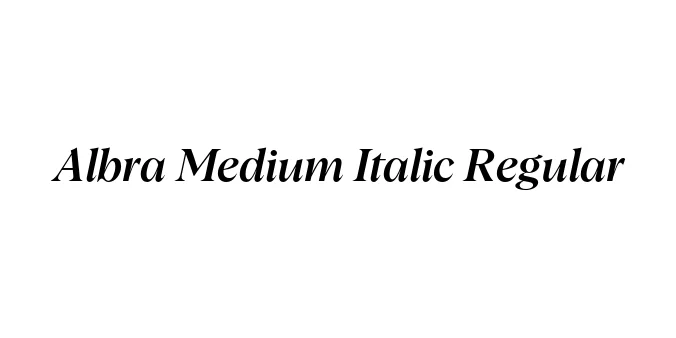
Albra Medium Italic Regular
Designed by BumbumType
Albra Medium Italic Regular is a sophisticated serif typeface that blends classical elegance with contemporary versatility. Developed by BumbumType, the font family is characterized by its high contrast and distinct, sharp serifs that provide a refined aesthetic. The Medium Italic weight adds a dynamic, fluid motion to the structure, making it ideal for editorial designs that require a touch of modern luxury and professional flair.
This typeface is part of a larger collection designed to bridge the gap between traditional book typography and modern branding. Its unique balance of proportions and calligraphic influences allows it to remain legible at smaller sizes while standing out as a bold statement in large headlines. The Albra Medium Italic Regular is particularly praised for its graceful slant and professional finish in fashion and high-end lifestyle publications, offering a timeless look for digital and print media.
Albra Medium Italic Regular Best Uses
Ideal for magazine layouts, pull quotes, and long-form articles.
Perfect for luxury fashion logos and high-end visual identity systems.
Adds a sophisticated touch to landing pages and blog titles.
Excellent for wedding invitations and premium business cards.